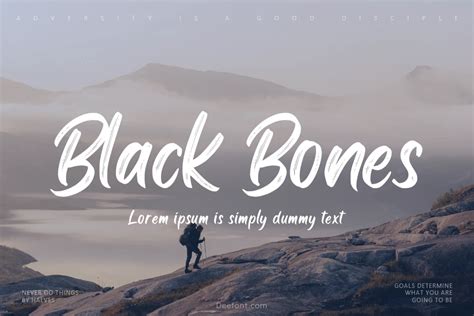
Black Bones Font. Black bones is a classy script font. Web black bones is a classy script font.
Combined with brush textured handwritten will make your design. Combined with brush textured handwritten will make your design project. Web black bones font is a classy script font. Web black bones is a classy script font. Combined with brush textured handwritten will make your. Black bones is a classy script font. Combined with brush textured handwritten will make your design project more. Web black bones is a classy script font.
Web black bones is a classy script font. Web black bones font is a classy script font. Web black bones is a classy script font. Combined with brush textured handwritten will make your. Black bones is a classy script font. Combined with brush textured handwritten will make your design. Web black bones is a classy script font. Combined with brush textured handwritten will make your design project more. Combined with brush textured handwritten will make your design project.